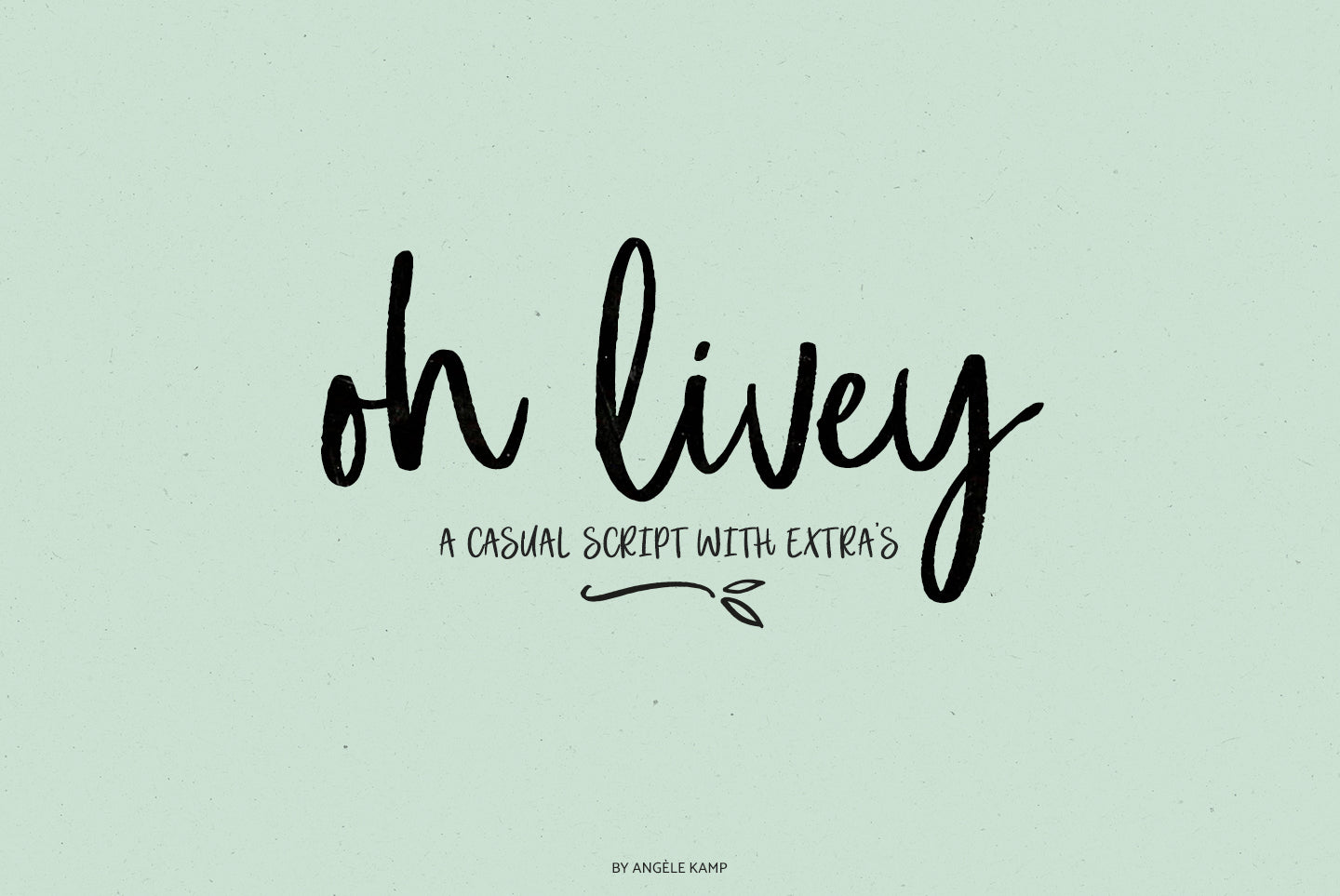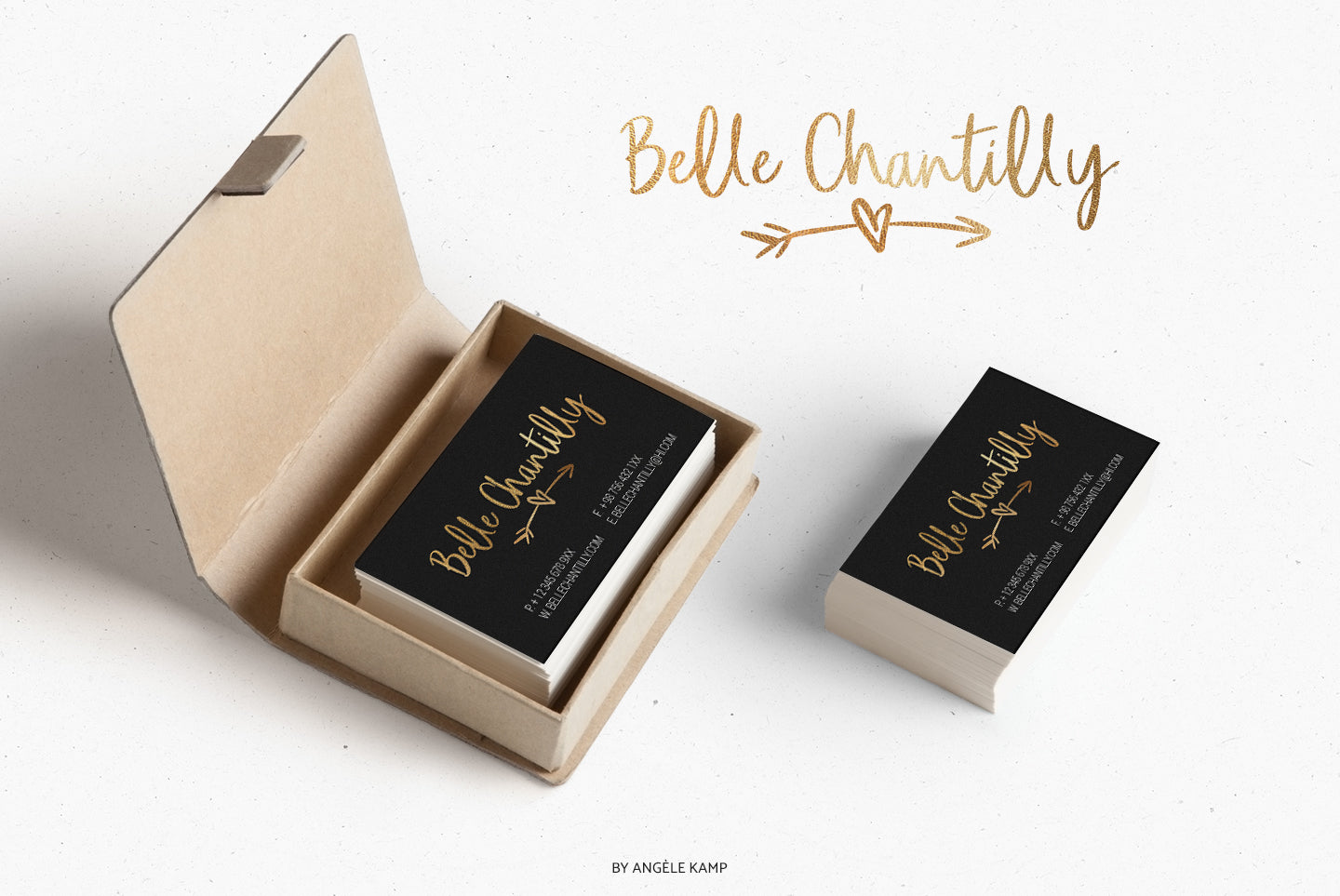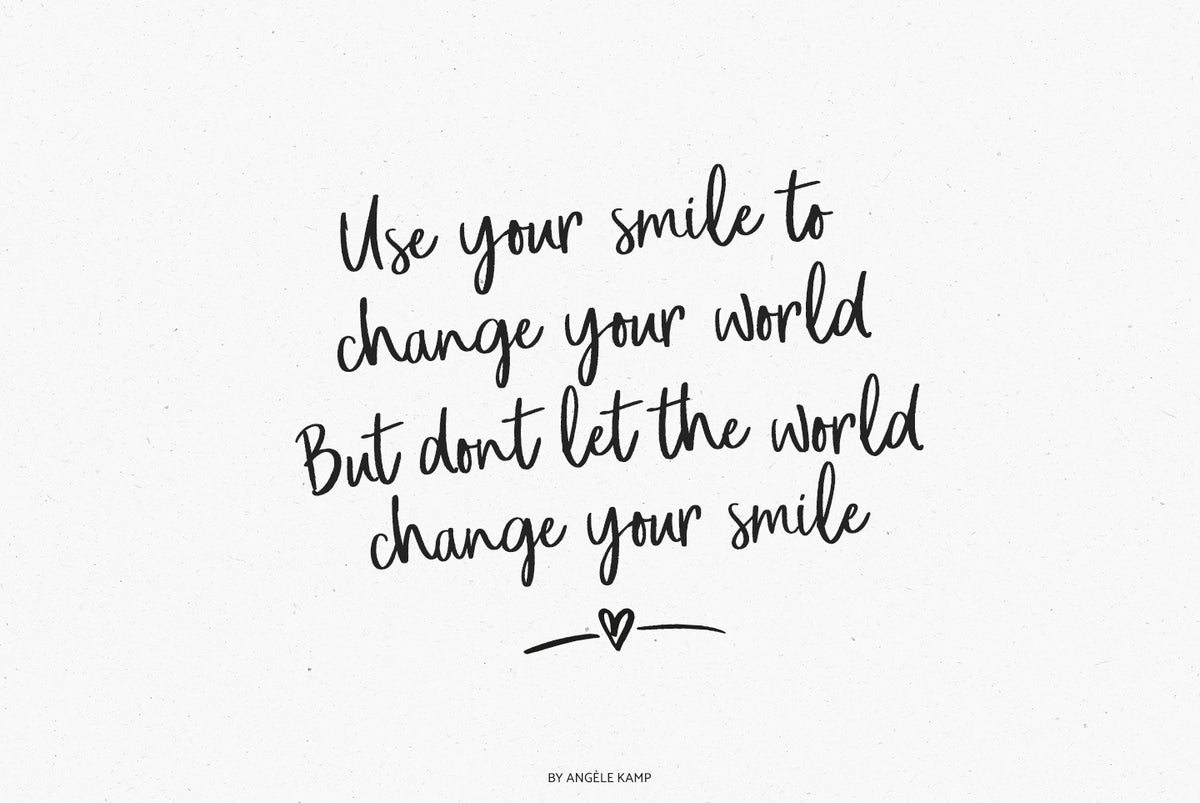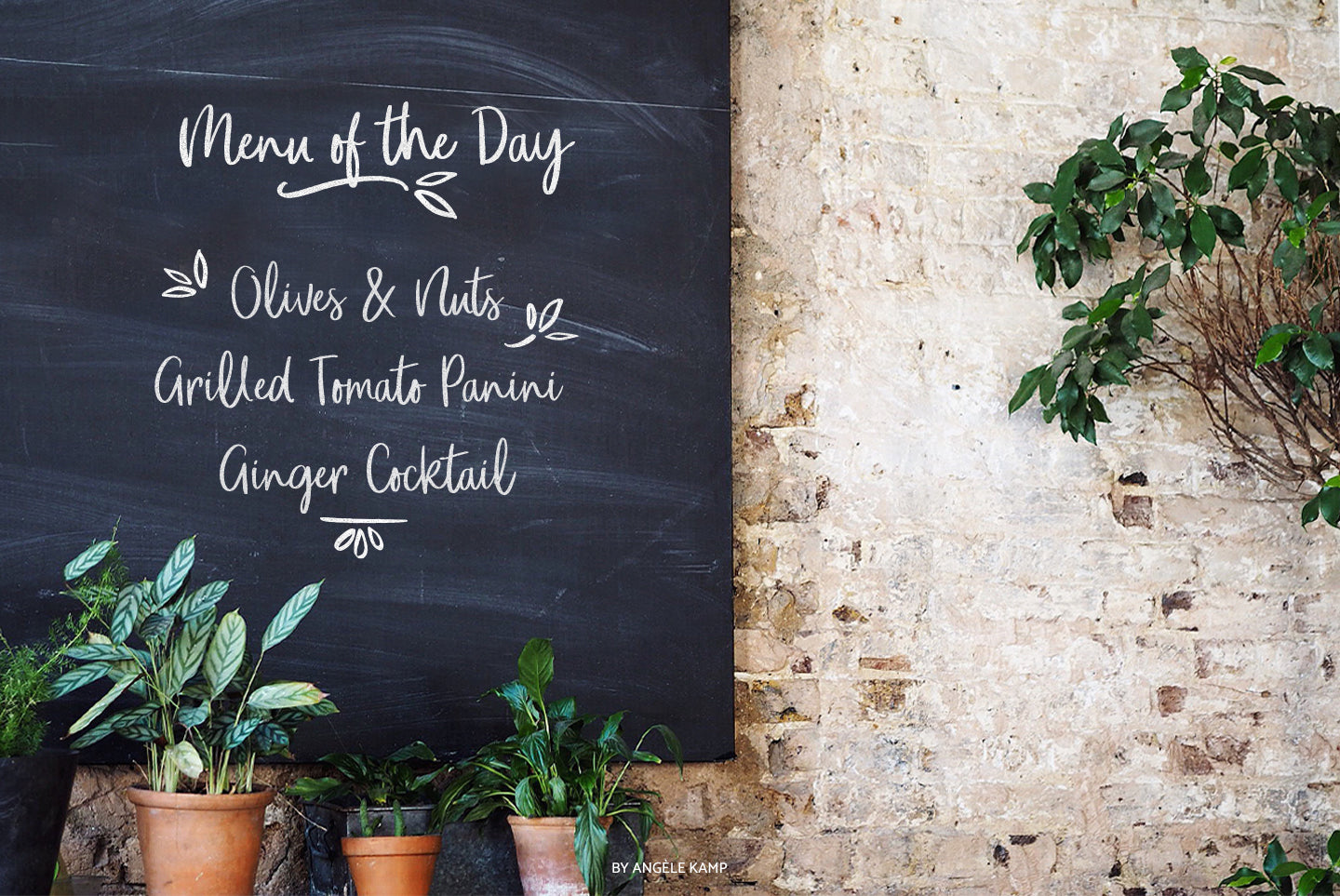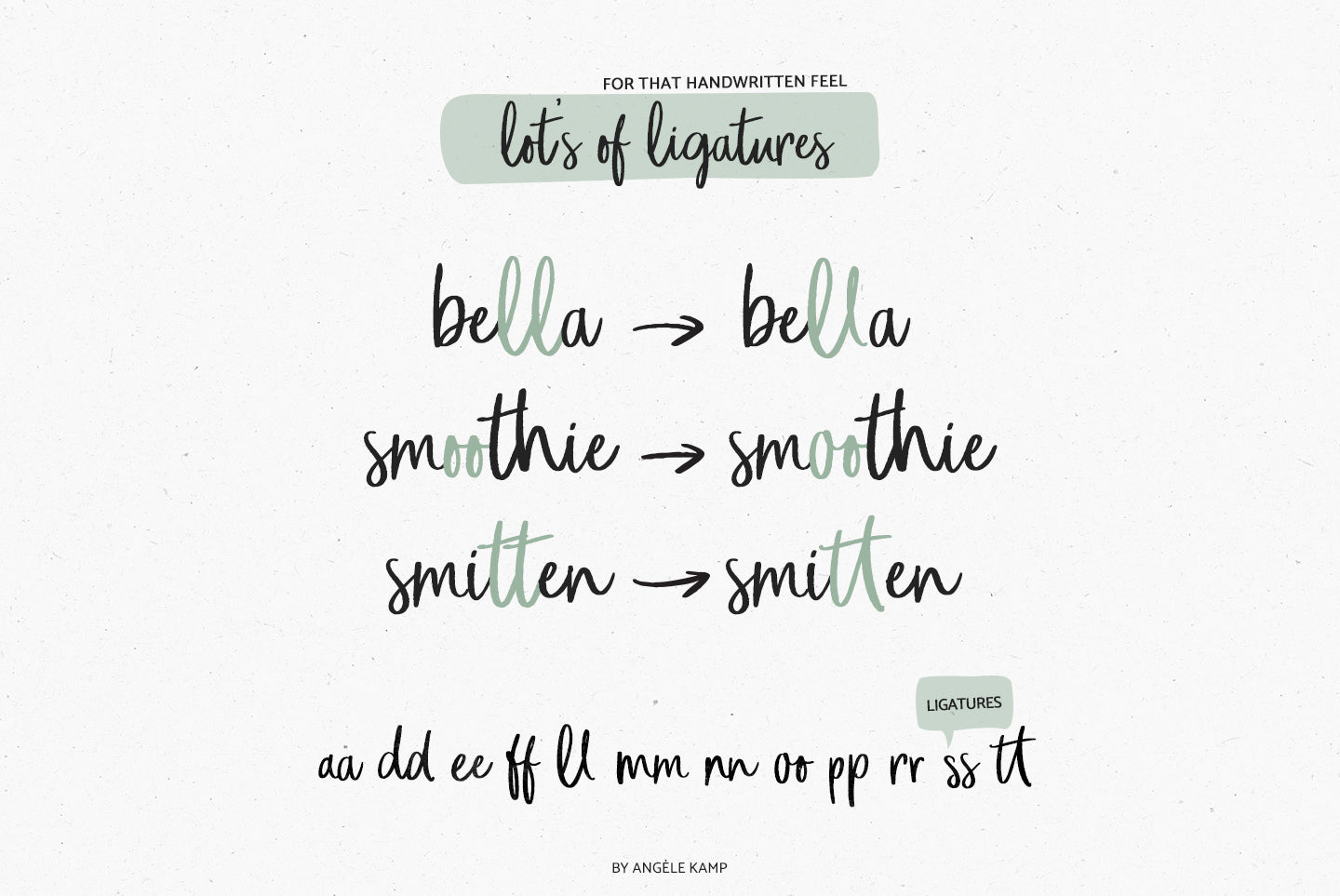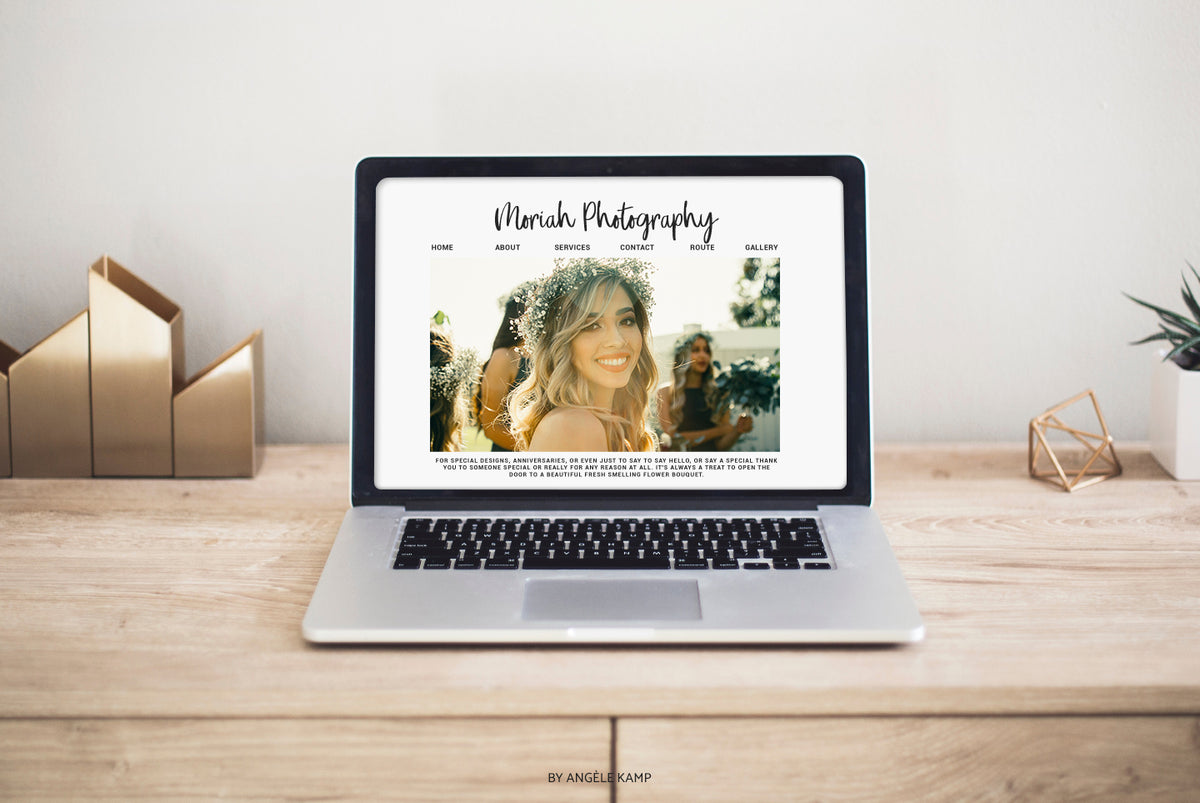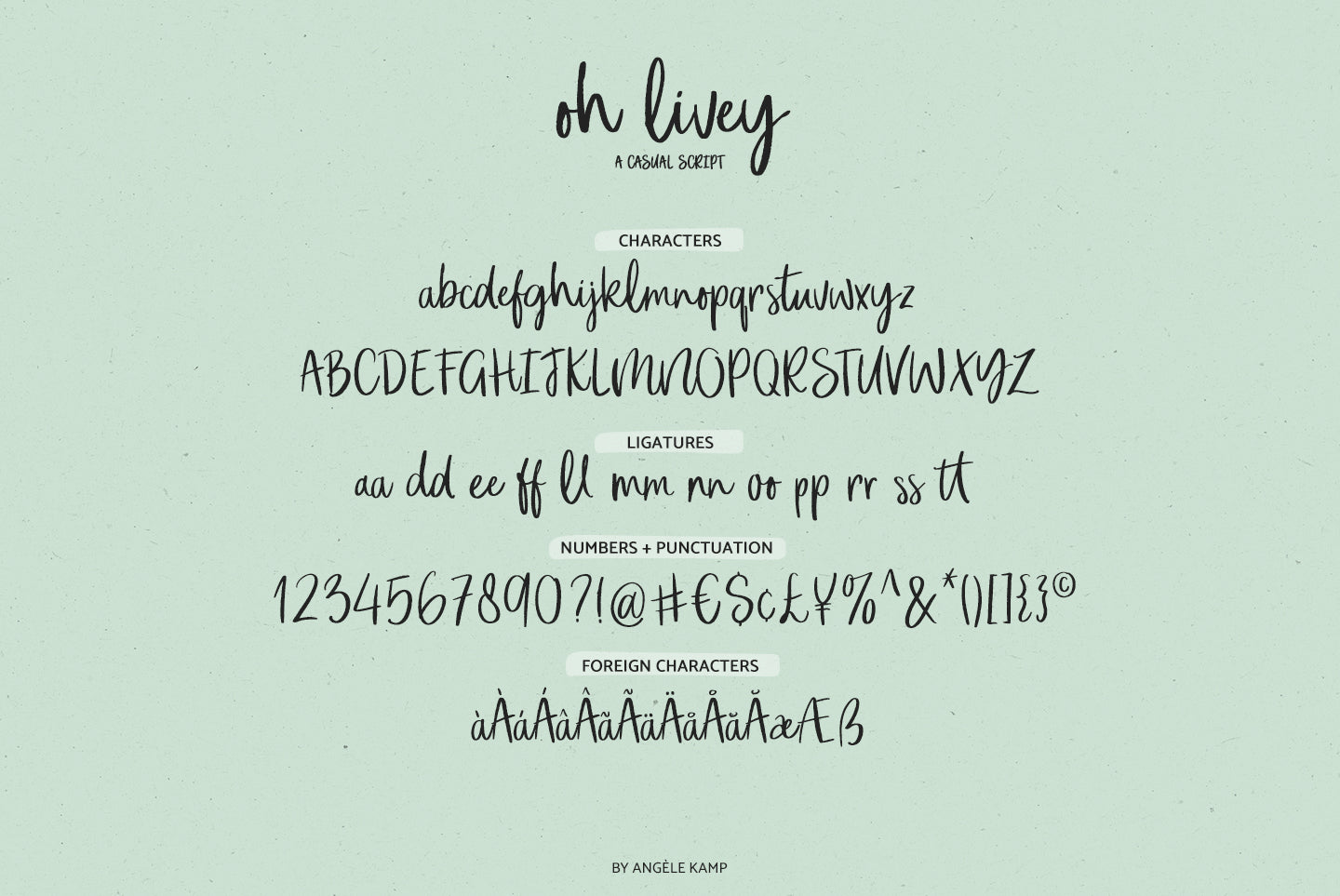
Oh Livey font
Oh Livey brush font by Angele Kamp
Oh Livey is a casual brush script that has a fun, modern vibe. Put it on everything from logos, quotes and websites, and use the extra clipart to make designing so much easier and fun. Oh Livey contains lots of ligatures which will give it that authentic handwritten feel.
Oh Livey contains standard characters, lowercase, uppercase, numbers, punctuation, ligatures, alternates, international characters and extra clipart.